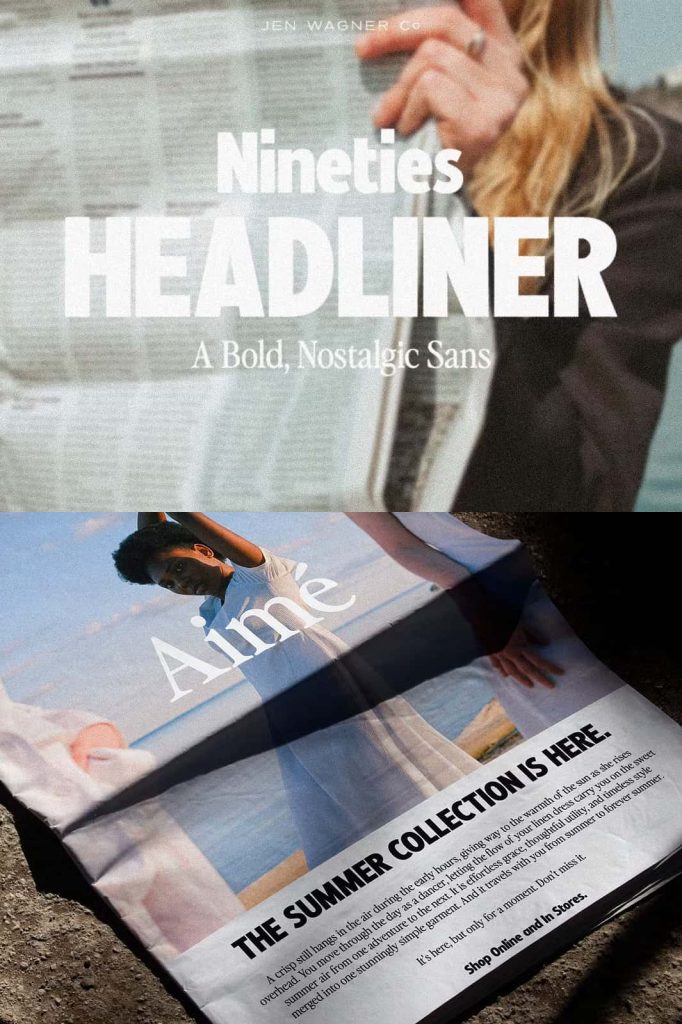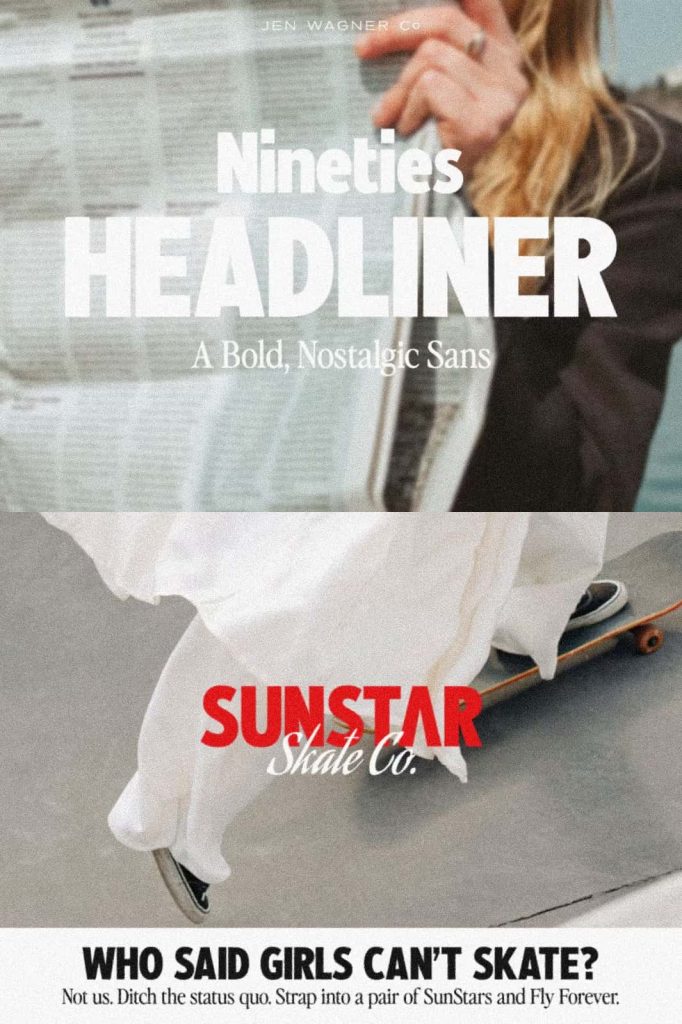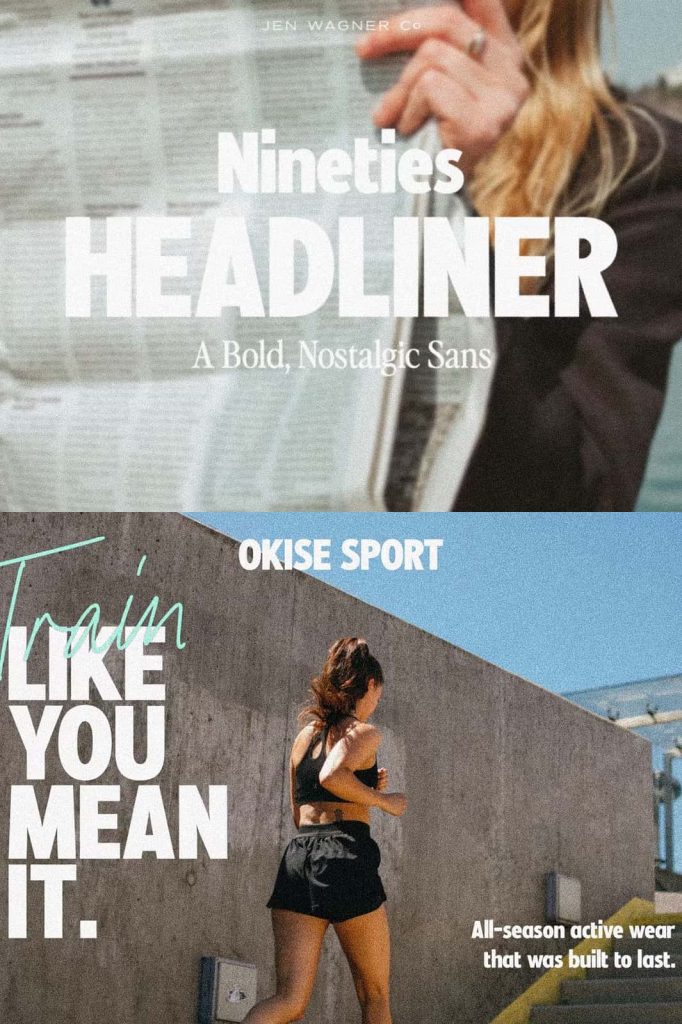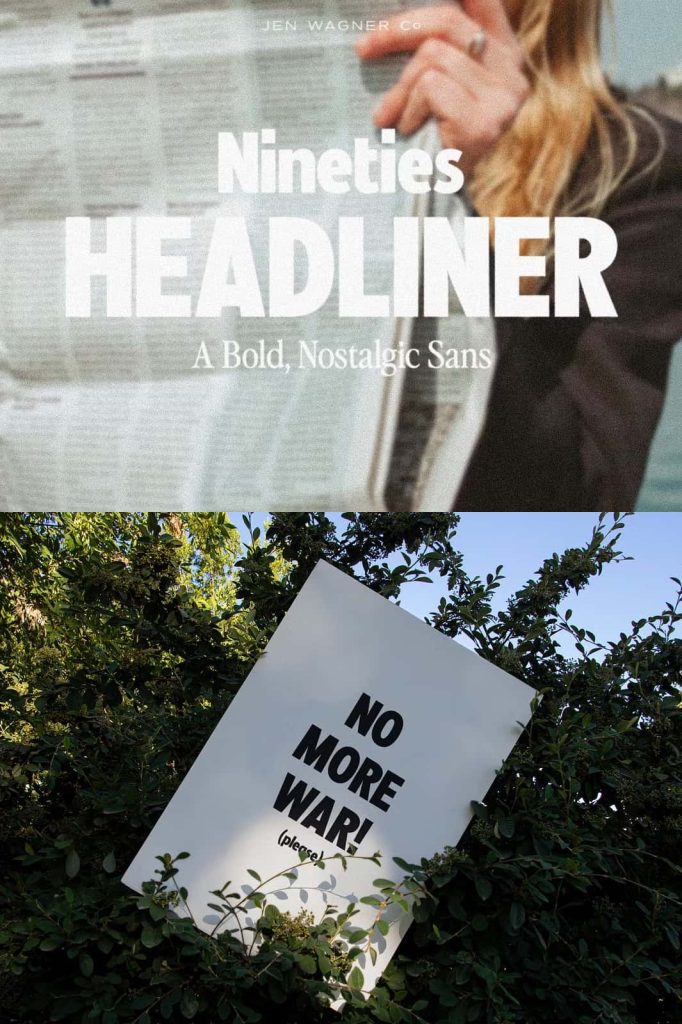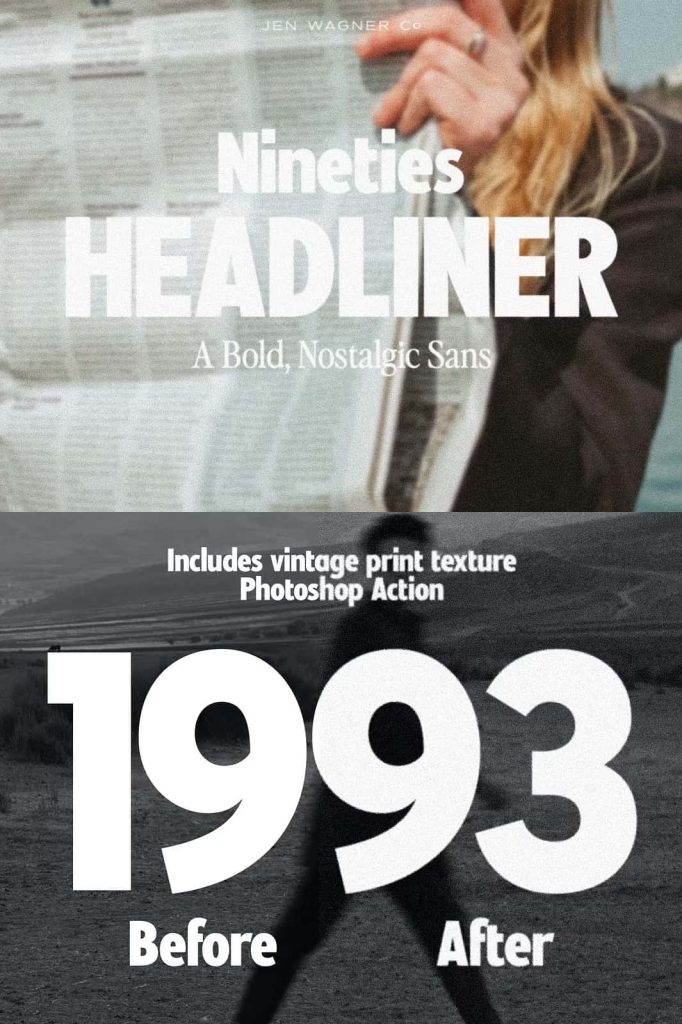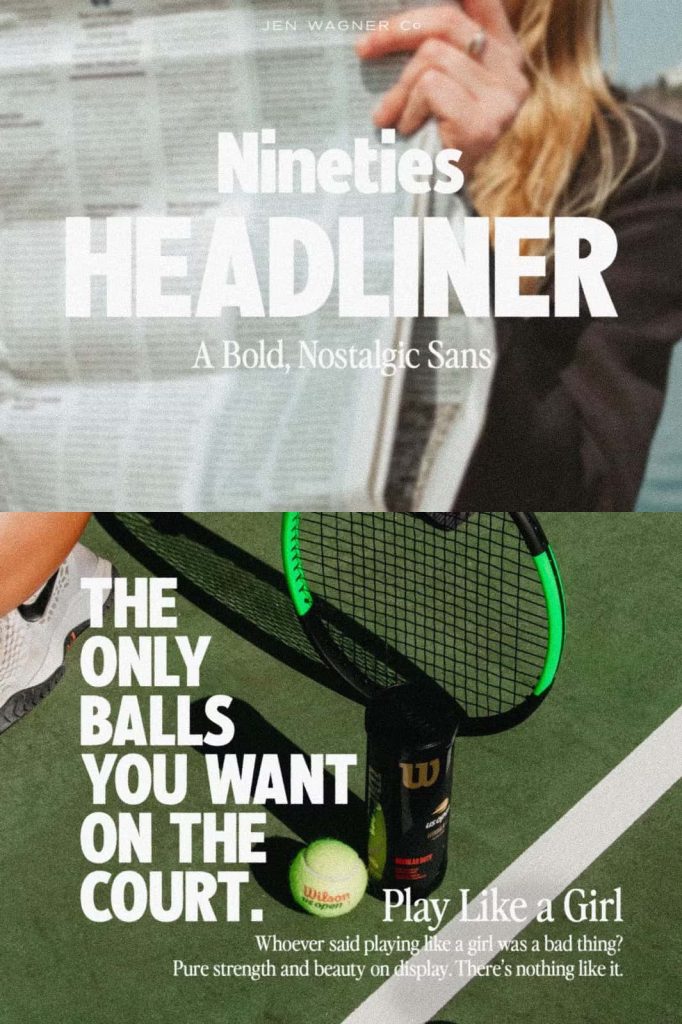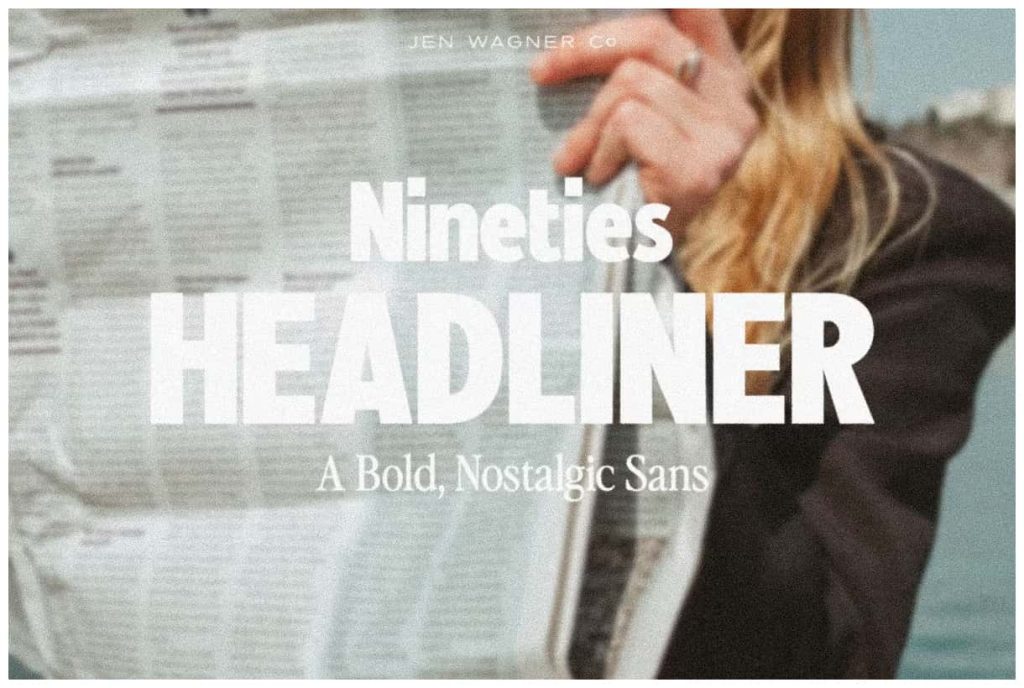
Nineties Headliner | Nostalgic SansleastedMarch 21, 2025Fonts Say hello to Nineties Headliner — a bold, nostalgic sans inspired by text-focused magazine ads of the 80s and 90s. Download